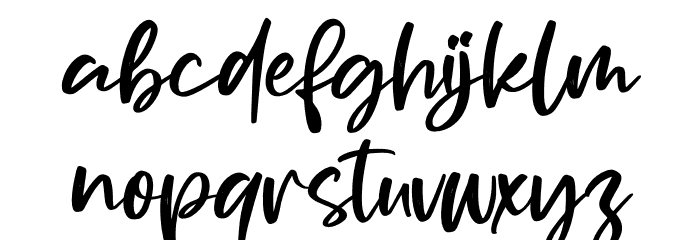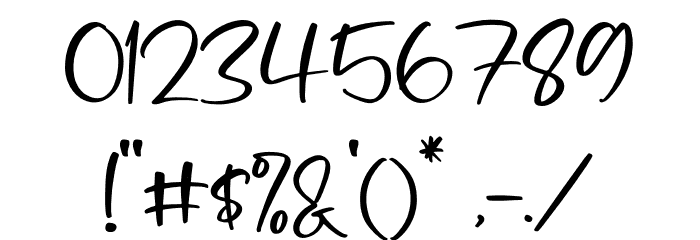
Portofolio Brilliant Font
This font features a dynamic and expressive handwritten style, characterized by its fluid and slightly irregular strokes that convey a sense of spontaneity and creativity. The uppercase letters are bold and prominent, with a playful yet sophisticated flair, while the lowercase letters maintain a consistent flow, enhancing readability. The numerals and special characters are crafted with the same attention to detail, ensuring a cohesive look across all elements. This font's unique charm makes it ideal for projects that require a personal touch or artistic expression.
A dynamic and expressive handwritten font with fluid, irregular strokes.
- Font: Portofolio Brilliant
- Proposed Projects: Ideal for branding, invitations, greeting cards, social media graphics, and creative projects that require a personal touch.
- Category: Handwritten
- Use Case: Logos, Headlines, Invitations